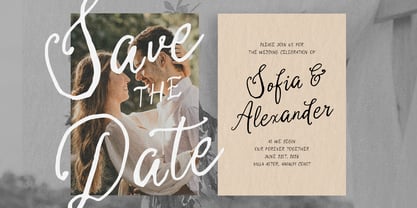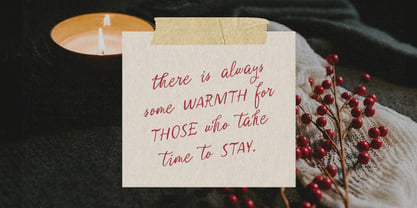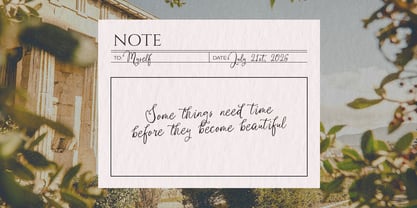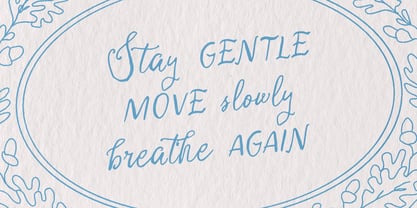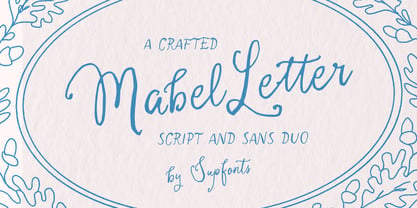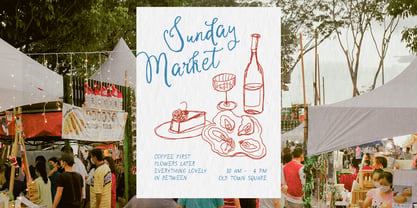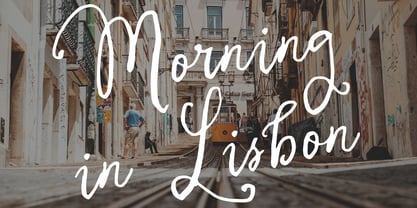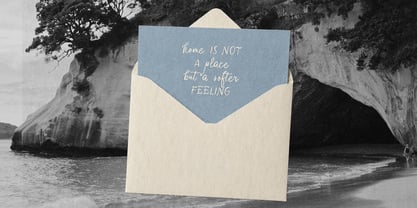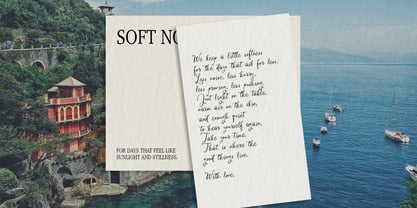
Mabel Letter
The Mabel Letter Font Family was designed by Dmitrii Chirkov and published by Supfonts. Mabel Letter contains 2 styles and family package options. More about this family
Mabel Letter is a soft, handcrafted font duo made for designs that need a little warmth, tenderness, and that “written by hand” feeling.
The set combines a flowing handwritten script with a charming all-caps sans, so you can easily create elegant contrast in one composition. Use the script for expressive words, names, quotes, and emotional accents, then pair it with the sans for small notes, dates, subtitles, and supporting text.
It feels personal, romantic, slightly imperfect, and beautifully calm like a handwritten note, a pressed flower, a Sunday market poster, or a letter you’d want to keep.
Mabel Letter works beautifully for wedding invitations, stationery, greeting cards, logos, packaging, social media posts, moodboards, quotes, café branding, lifestyle designs, and any project that needs a soft handmade touch.
Mix both styles together for effortless layouts, cozy editorial designs, romantic branding, and delicate printed pieces.